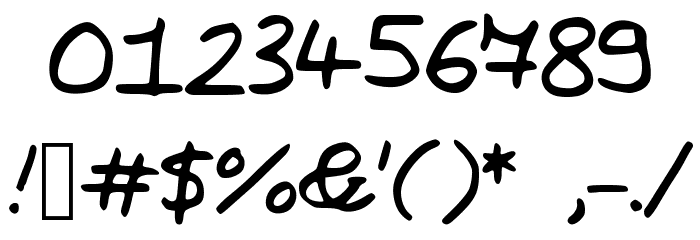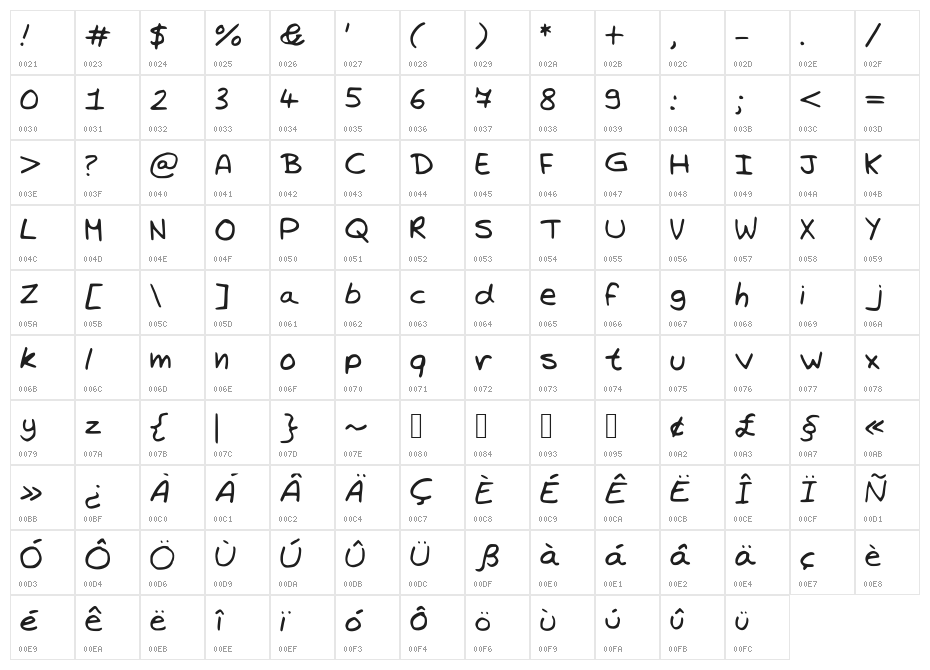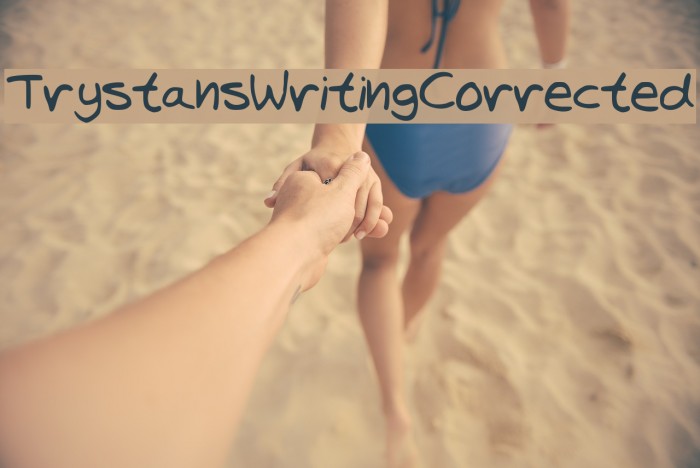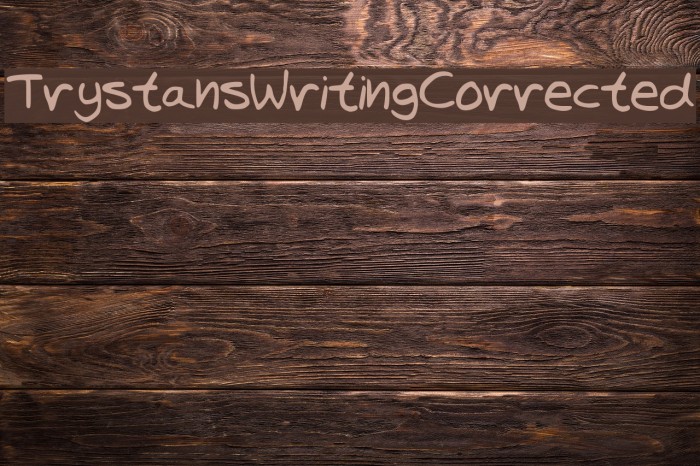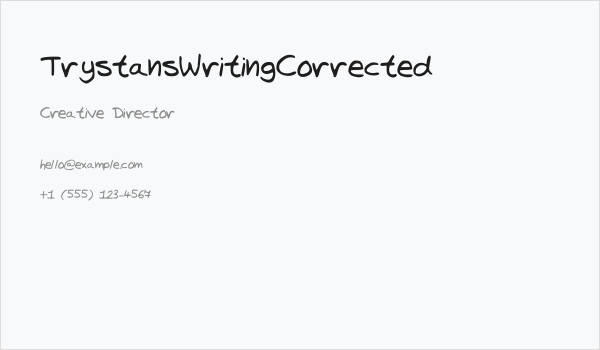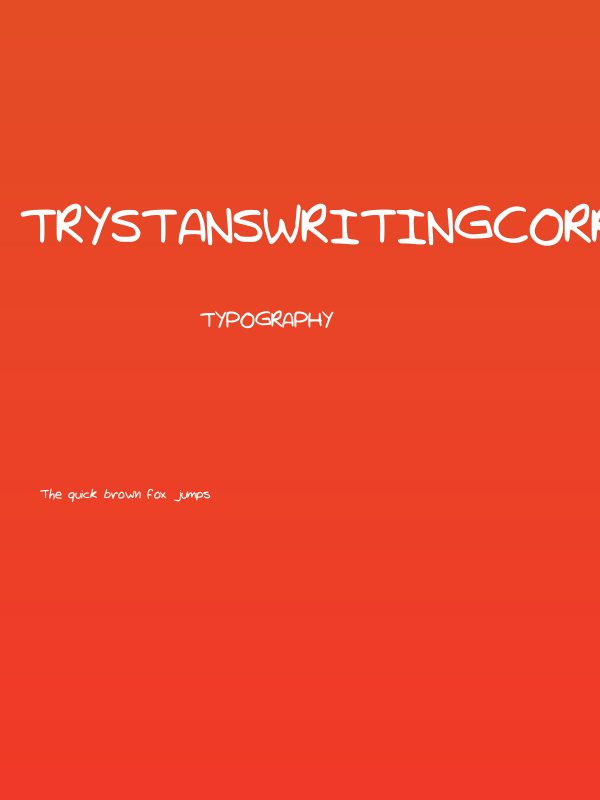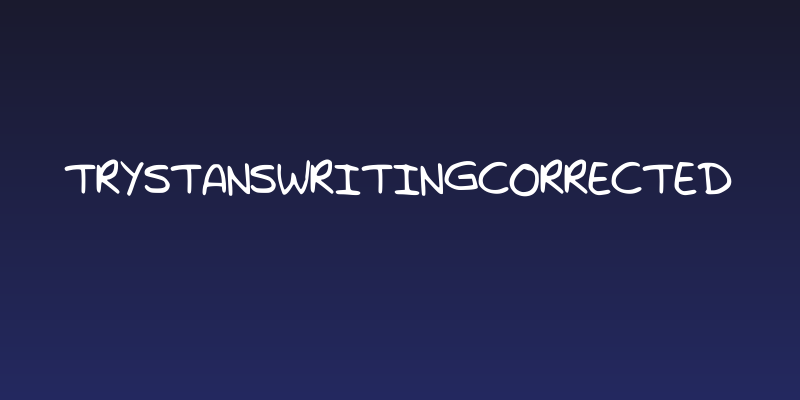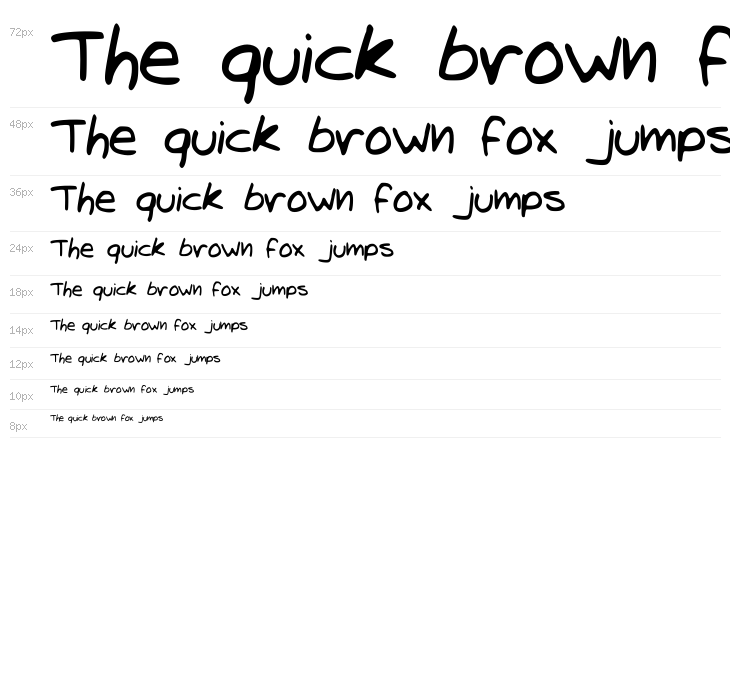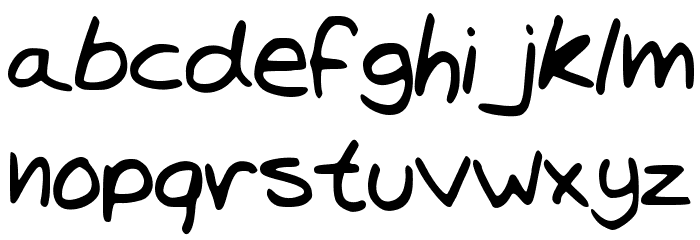
TrystansWritingCorrected Font
TrystansWritingCorrected Description
This font exudes a playful and casual handwritten style, characterized by its rounded and slightly irregular letterforms. The strokes are smooth and consistent, giving it a friendly and approachable appearance. Each character maintains a uniform thickness, contributing to a cohesive look across the alphabet. The font includes both uppercase and lowercase letters, numerals, and a variety of special characters, making it versatile for different applications. Its informal style is perfect for projects that require a personal touch or a relaxed vibe.
| Use Case | Headlines, Informal text, Personal projects |
| Proposed Projects | Ideal for greeting cards, children's books, casual branding, and social media graphics. |